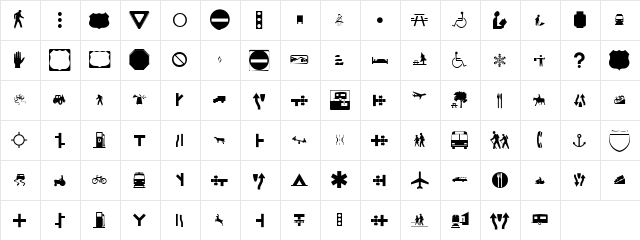
Roadgeek 2005 Icons Regular
Design Context for Roadgeek 2005 Icons Typeface
Roadgeek 2005 Icons is a composed and adaptable typeface that performs quietly and consistently across a wide range of design contexts.